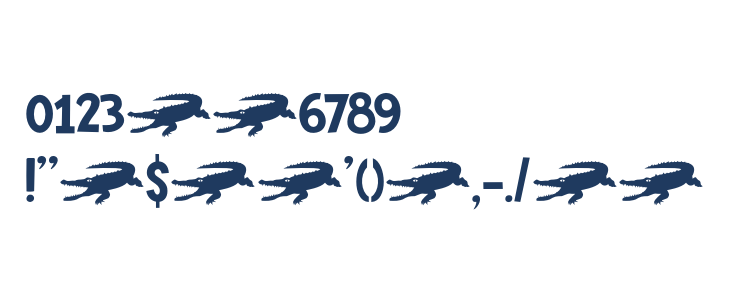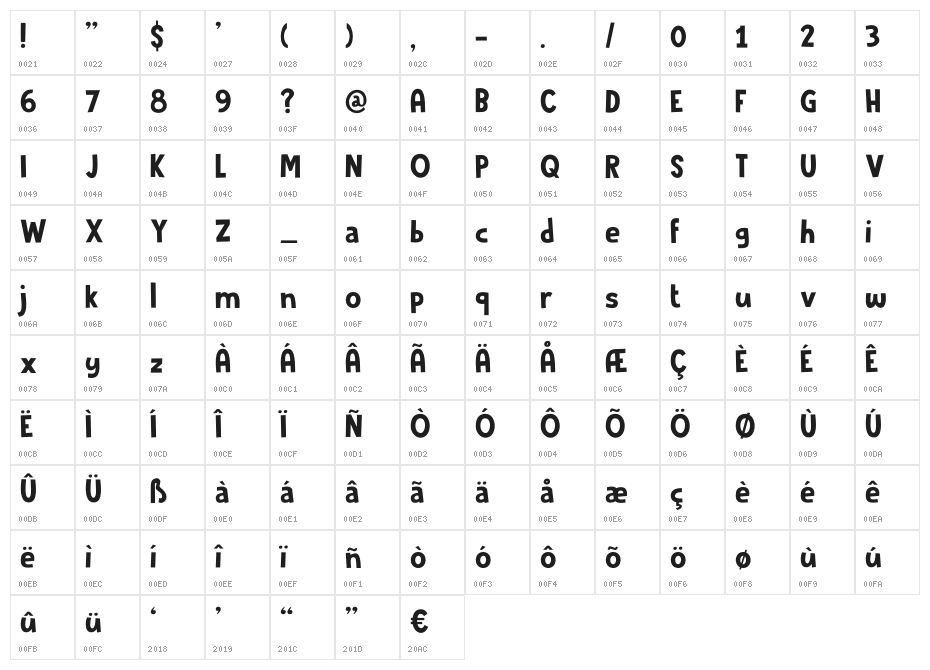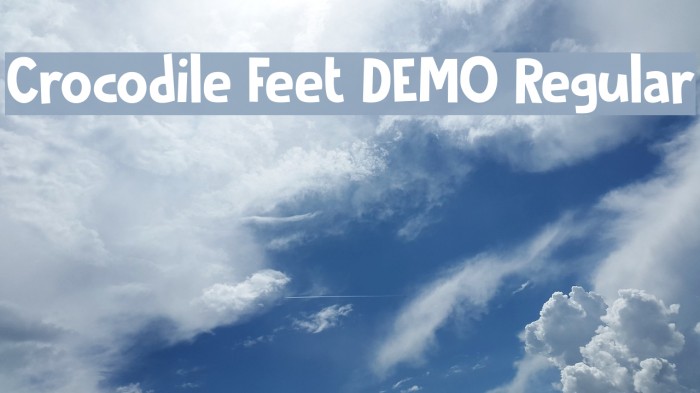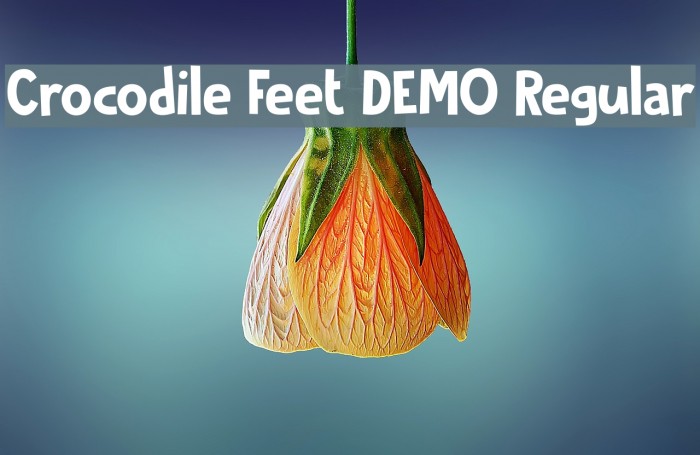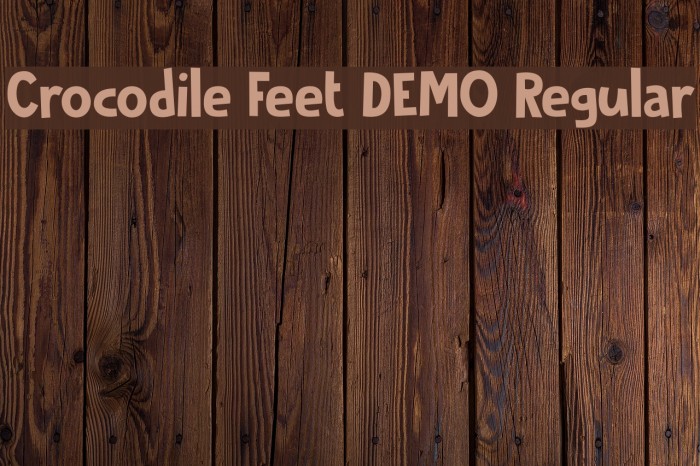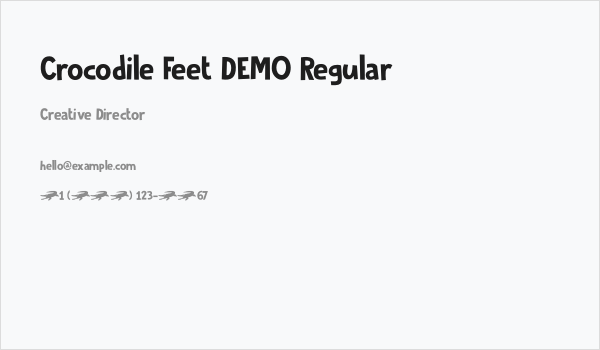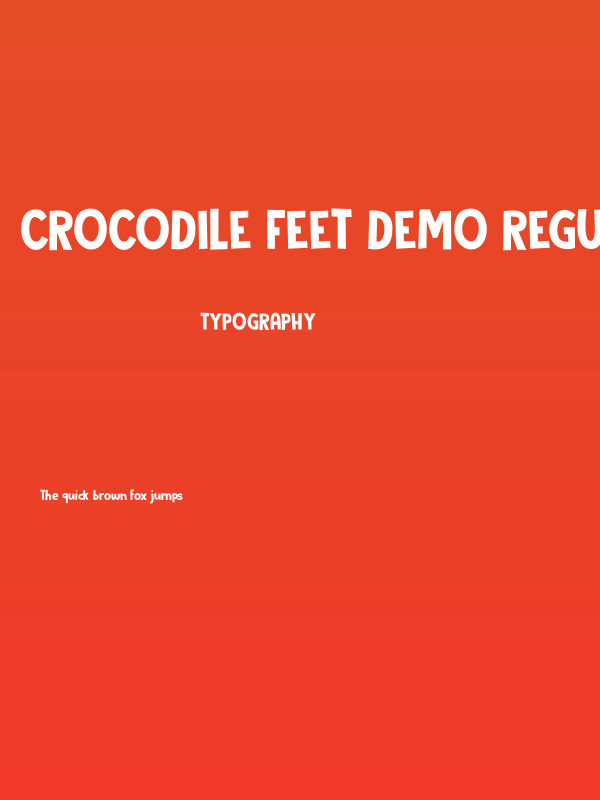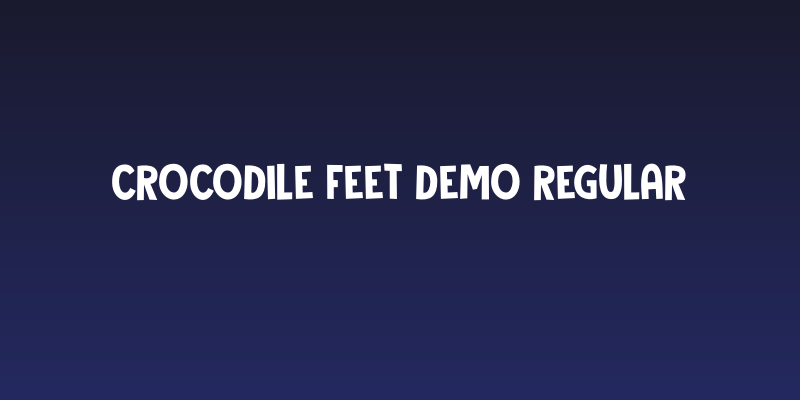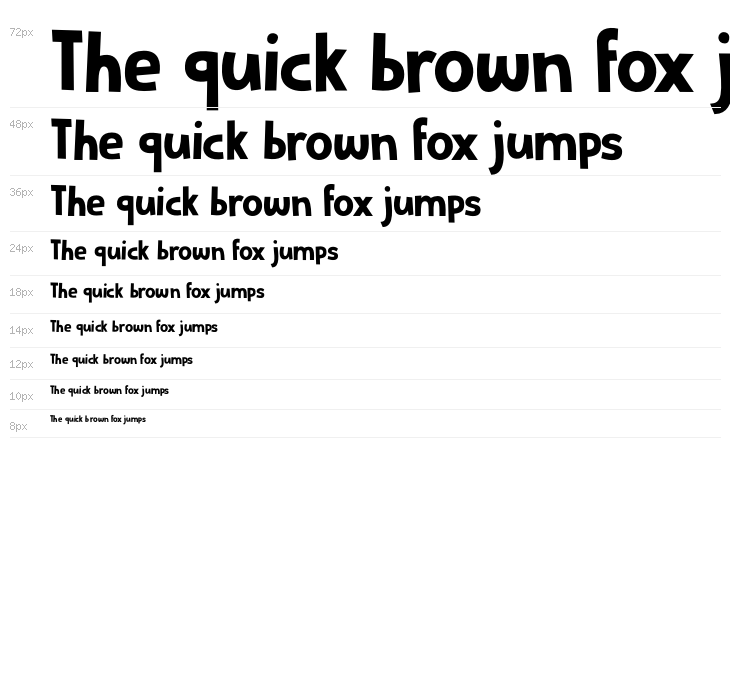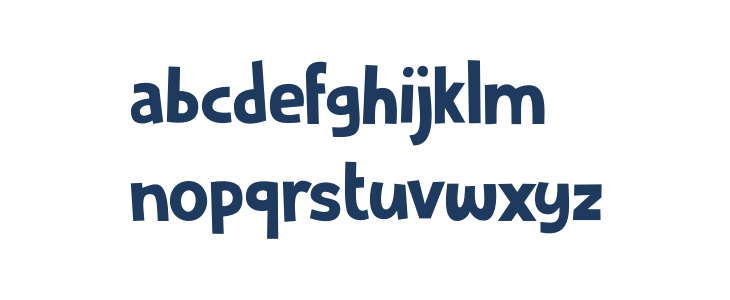
Crocodile Feet DEMO Regular Font
Crocodile Feet DEMO Regular Description
This playful and bold font features a unique and whimsical design, incorporating crocodile silhouettes as part of its character set. The uppercase and lowercase letters are rounded and slightly irregular, giving them a hand-drawn appearance. The numbers and special characters maintain this playful theme, with crocodile images replacing some of the numerals. The font's overall style is decorative and fun, making it ideal for projects that require a lighthearted and creative touch.
| Use Case | Logos, Posters, Children's books |
| Proposed Projects | Ideal for children's books, playful branding, themed event invitations, and creative posters. |